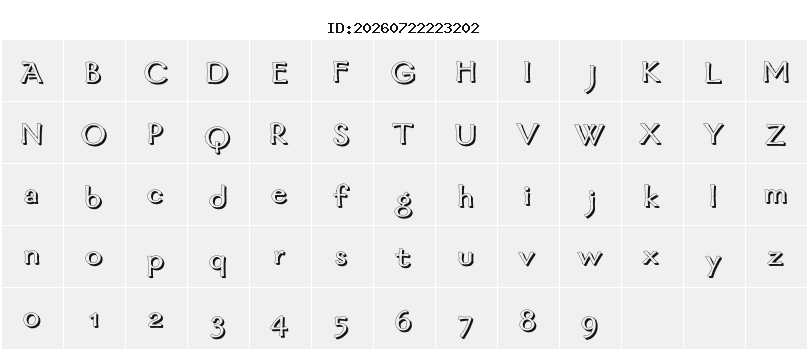
MordredShadow-Bold.ttf is a modern, elegant sans-serif font designed for ultimate readability and visual harmony. Perfect for branding, headlines, web design, and print materials.